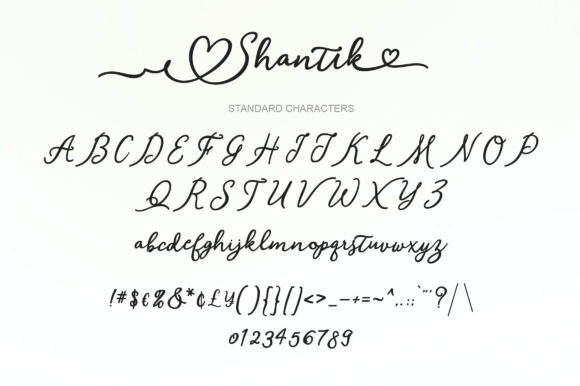
Freebie Wednesday: Shantik Font
Shantik font is a beautiful and unique typeface. It includes amazing swashes which will add an elegant touch to your designs and it’s free at Creative Fabrica for another 5 days so you better make sure you don’t miss out!